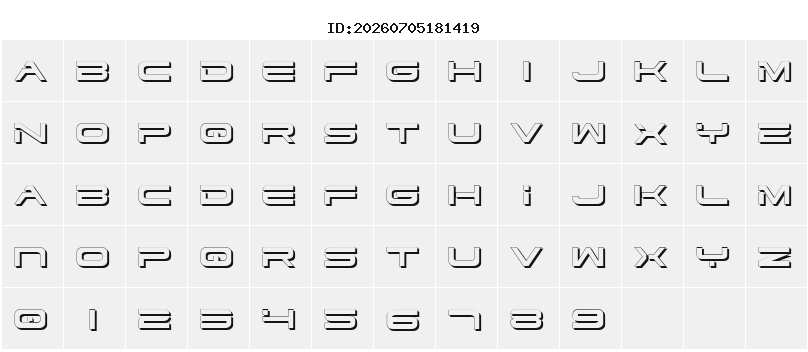
• Designer: Dan Zadorozny
About Dodger Shadow.ttf
Dodger Shadow.ttf is a modern, elegant sans-serif font designed for ultimate readability and visual harmony. Perfect for branding, headlines, web design, and print materials.